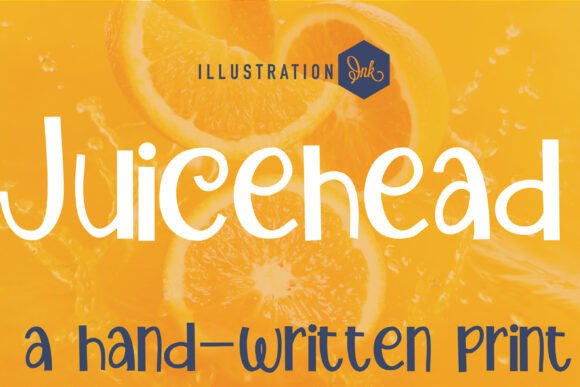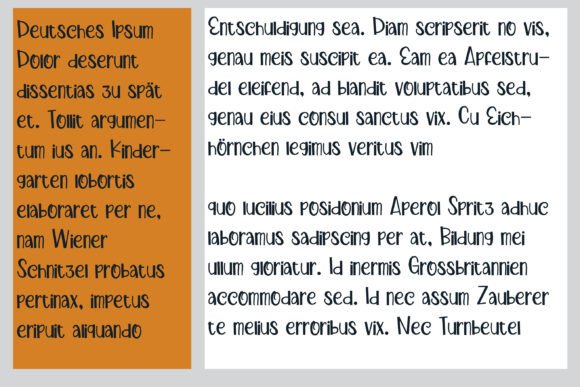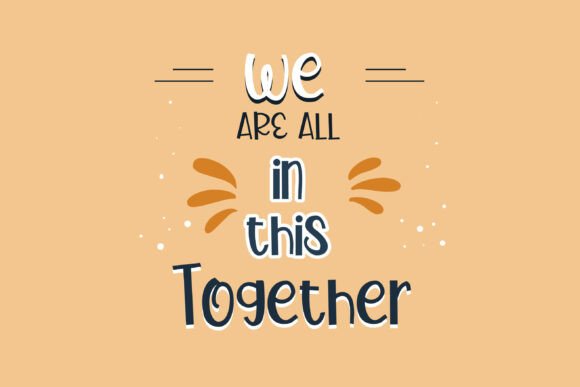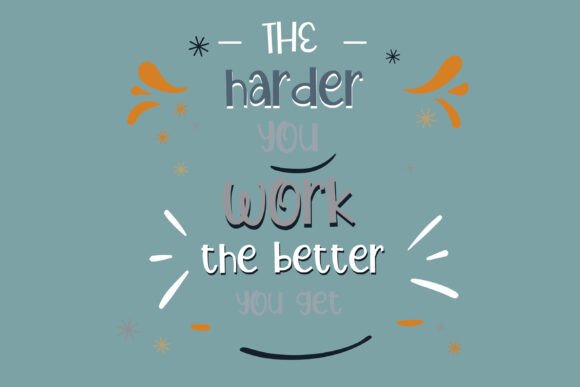
Juicehead Font
About the Juicehead Font
Discover the charm of Juicehead Font. This font is a perfect blend of modern aesthetics and classic appeal. This hand-crafted font is a simple sans serif print with no descenders.
Juicehead’s playful, informal personality makes it ideal for headlines, short text blocks on posters or packaging, and branding elements needing a friendly, approachable feel. It works exceptionally well for children’s products or brands with a youthful, energetic image. Avoid using it for body text or UI elements; the lack of descenders and its hand-crafted nature compromise readability in extended passages.
Pairing Juicehead with a clean sans-serif like Open Sans for body copy provides excellent contrast and readability. For a more sophisticated look, consider pairing it with a classic serif like Garamond or a geometric sans-serif like Futura for a balanced contrast in style.
The light version offers a softer option, suitable for subheadings or secondary text where a more subtle yet still friendly impact is desired.
Juicehead Font Usage Examples
Juicehead Font Example